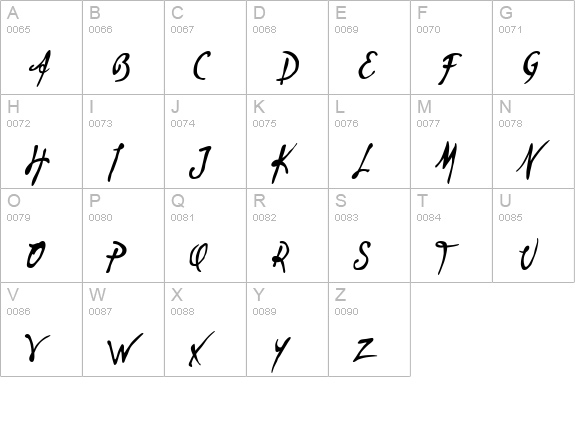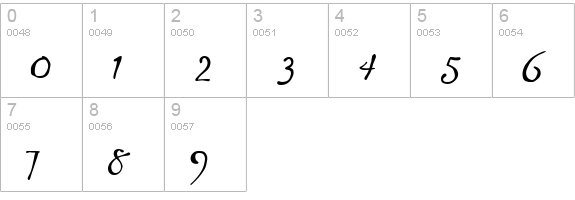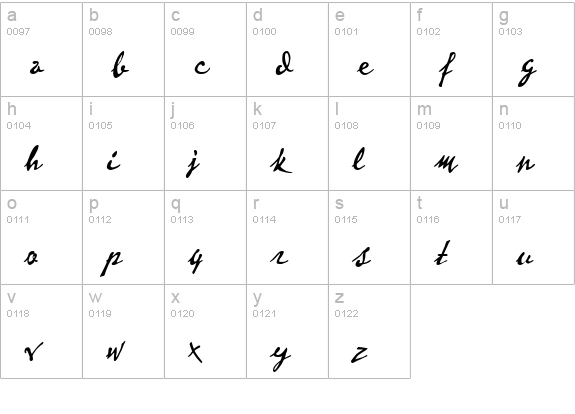
P22Vincent Font Details
P22Vincent font is a visually captivating typeface that exudes a sense of elegance and sophistication. Its unique design combines elements of modernity with a touch of classic charm, making it a versatile choice for various creative projects. The intricate details and intricate strokes of P22Vincent font are a testament to the careful craftsmanship that went into its creation. Each letter is meticulously crafted, resulting in a harmonious balance between legibility and artistic expression. The graceful curves and sharp angles of this font create a stunning visual impact, capturing attention and leaving a lasting impression. What makes P22Vincent font even more remarkable is the fact that it is freely available to download at FontsMarket.com. This means that designers, artists, and enthusiasts alike can access this exceptional typeface without any cost. Its availability for free allows for greater accessibility and encourages creativity to flourish. Whether it's for a logo, a poster, a website, or any other design project, P22Vincent font is an excellent choice. Its versatility allows it to adapt to various design styles and themes, making it suitable for both modern and traditional aesthetics. In addition to its aesthetic appeal, P22Vincent font also boasts exceptional readability. Each letter is crafted with precision, ensuring that text remains clear and easy to read, even at smaller sizes. This makes it an ideal choice for both print and digital applications, ensuring that your message is effectively communicated to your audience. In conclusion, P22Vincent font is a captivating and versatile typeface that stands out with its elegant design and exceptional legibility. Its availability for free download at FontsMarket.com further enhances its appeal, making it a valuable resource for designers and creatives. Embrace the beauty and functionality of P22Vincent font and elevate your designs to new heights.